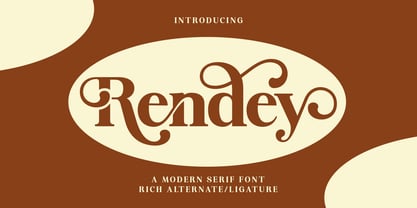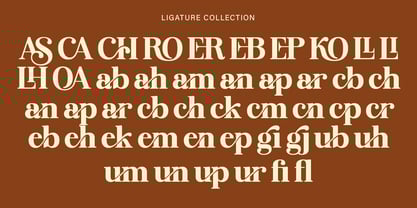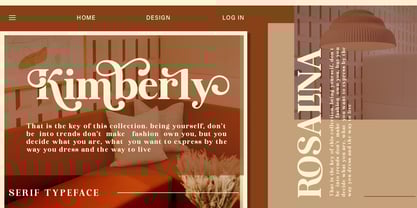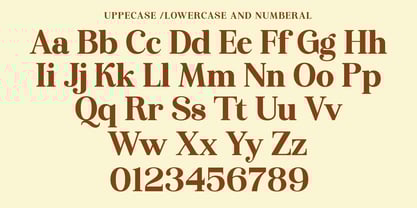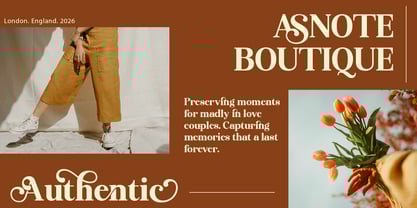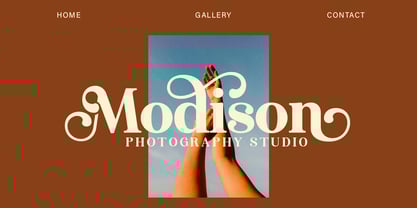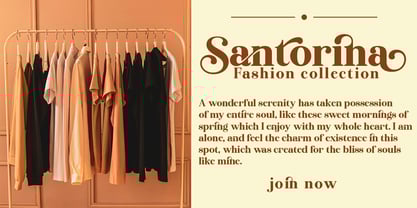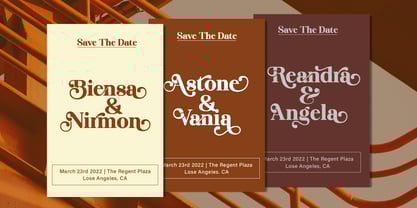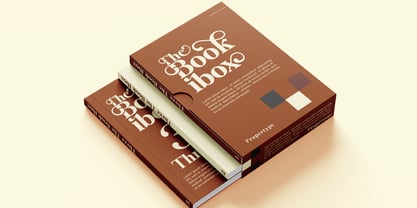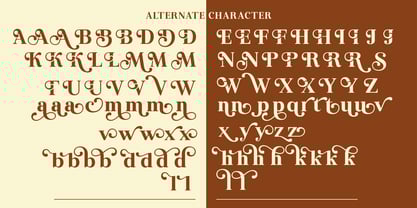
Rendey
The Rendey Font Family was designed by khaidir and published by Gatype. Rendey contains 2 styles and family package options. More about this family
Rendey has a full set of modern uppercase and lowercase letters, numbers, punctuation, and multilingual symbols. Includes opentype features like ligatures, alternates, and more.
Rendey is an Elegant Serif Font that features Contrast Lines and George curved terminals that give a sleek and elegant look to logos, holiday cards, wedding invitations, quotes, advertisements, and more.
Opentype features (ligatures, alternates)